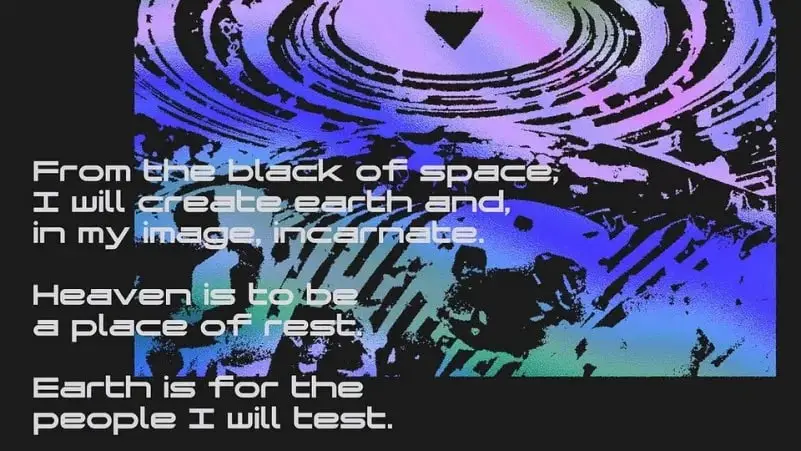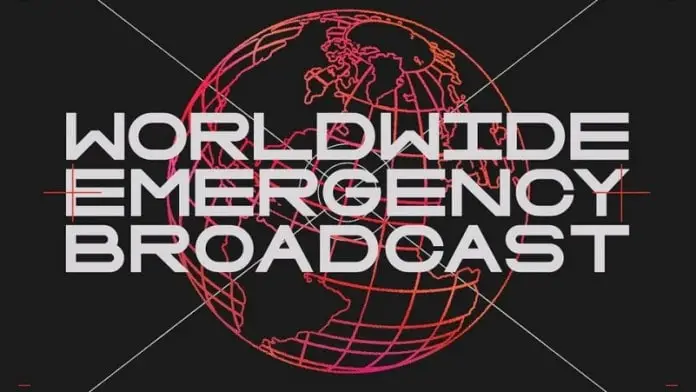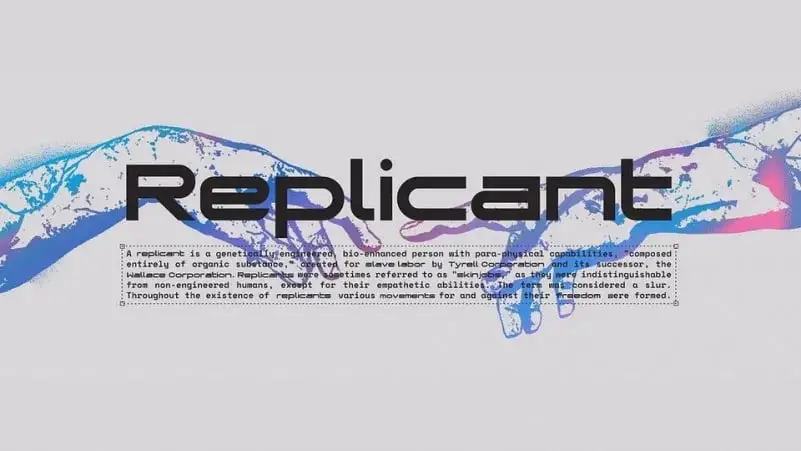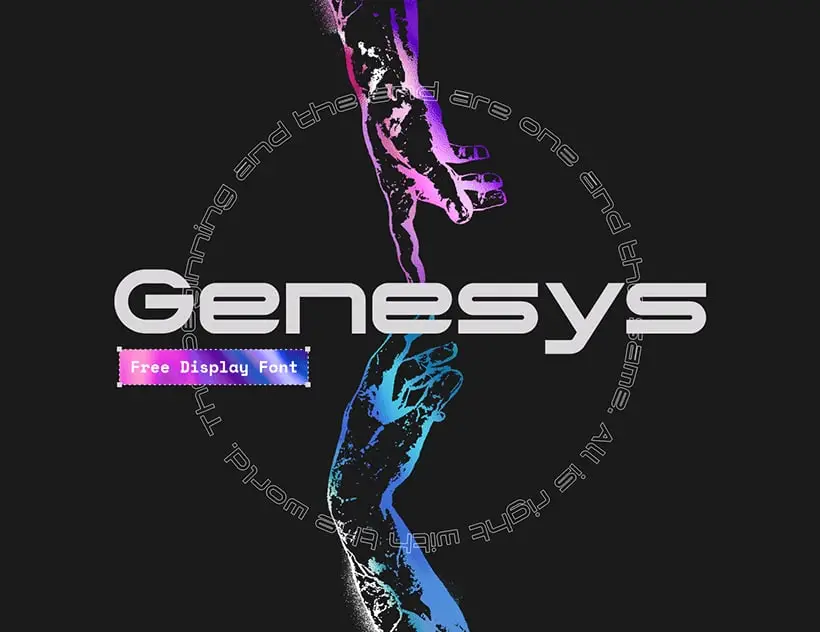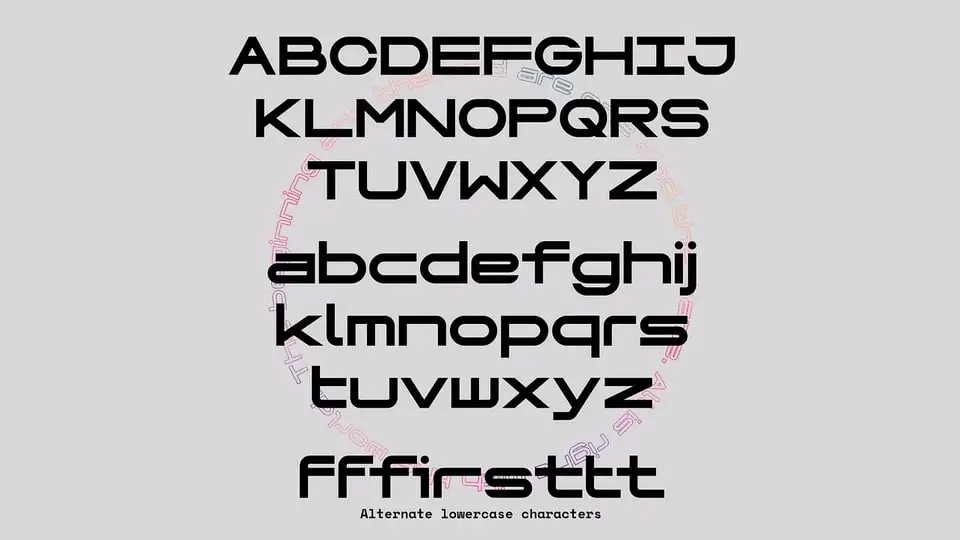
Willem Dimas-Genesys Free Display Font
The Willem Dimas-Genesys Free Display Font is a striking typeface designed to capture attention. With its unique character shapes and bold presence, this font is perfect for various creative projects.
• Stylish display font suitable for headlines and titles
• Multiple weights for versatile design options
• Distinctive letterforms that stand out in any context
• Great for web and print applications
• Use in UI elements to create a modern look